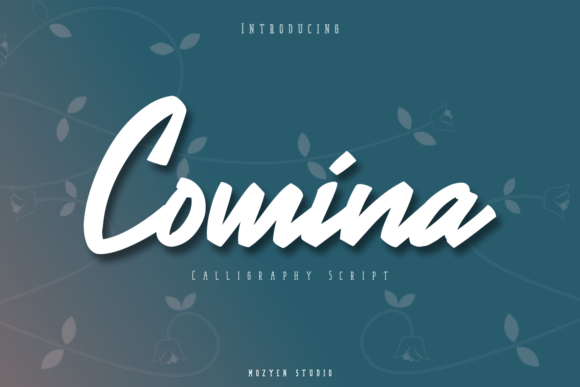
Introducing Comina Font: A Brush of Splendor for Your Visual Creations!
In a world where visual communication reigns supreme, presenting your ideas with a captivating aura is no longer a luxury but a necessity. Comina Font emerges as your ultimate ally in this quest for aesthetic supremacy, a flowing script font that dances gracefully across the digital canvas. Its thick, hand-lettered strokes exude an air of elegance, inviting your audience to immerse themselves in the depths of your creative vision.
Comina Font's distinct and timeless style transcends the boundaries of ordinariness, beckoning you to explore a realm of typographic artistry. Its carefully crafted curves and flourishes add a touch of finesse to your designs, evoking a sense of sophistication that resonates with your audience. Whether you're crafting product labels, social media graphics, or simply seeking a touch of handwritten charm in your digital creations, Comina Font stands ready to transform your words into visual masterpieces.
Embrace the allure of Comina Font and watch as your designs blossom into captivating expressions of your creative genius. Its versatility knows no bounds, seamlessly adapting to a myriad of design aesthetics. Whether you seek a vintage charm, a modern flair, or anything in between, Comina Font chameleon-like nature ensures it harmonizes effortlessly with your unique style.
With Comina Font as your creative companion, you'll discover a newfound joy in the art of digital design. Its user-friendly interface and comprehensive character set empower you to unleash your imagination without hindrance. Let your creativity flow freely as you explore the endless possibilities that await you within the realm of this extraordinary font.